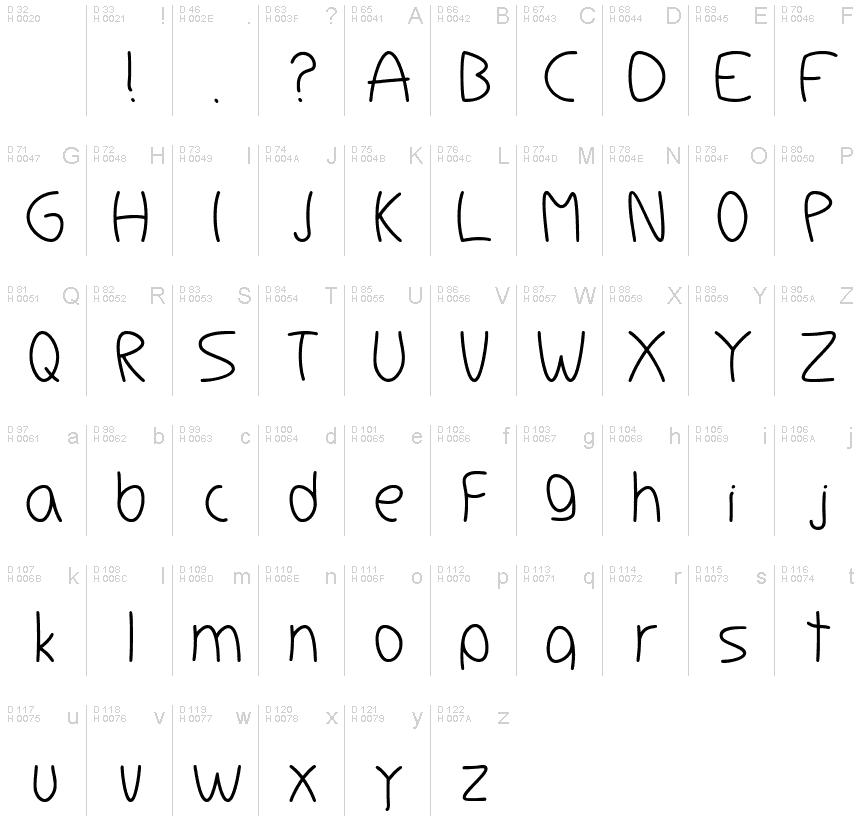
Coffe You Regular
Coffe You, designed by Andre Gouveia, brings the personal touch of handwritten correspondence to the digital realm with its light and breezy aesthetic. The font's whimsical curves and flowing lines evoke a casual, yet sophisticated charm that is as inviting as it is distinctive. The effortless grace of Coffe You makes it an ideal choice for projects seeking to convey intimacy and individuality, from personalized branding to heartfelt invitations.
With its handwritten style, this font exudes warmth and friendliness, reminiscent of a note passed between friends or a scribble in the margins of a journal. The light weight of the strokes contributes to a delicate and unassuming presence on the page that complements its handcrafted essence.
Coffe You's versatility shines in contexts ranging from creative editorials to artisanal product packaging. Its playful sophistication ensures it stands out whether employed in logo design, social media graphics, or any platform where an approachable yet refined typeface is desired. Embrace the unique character of Coffe You for your next design venture where personality and elegance are paramount.